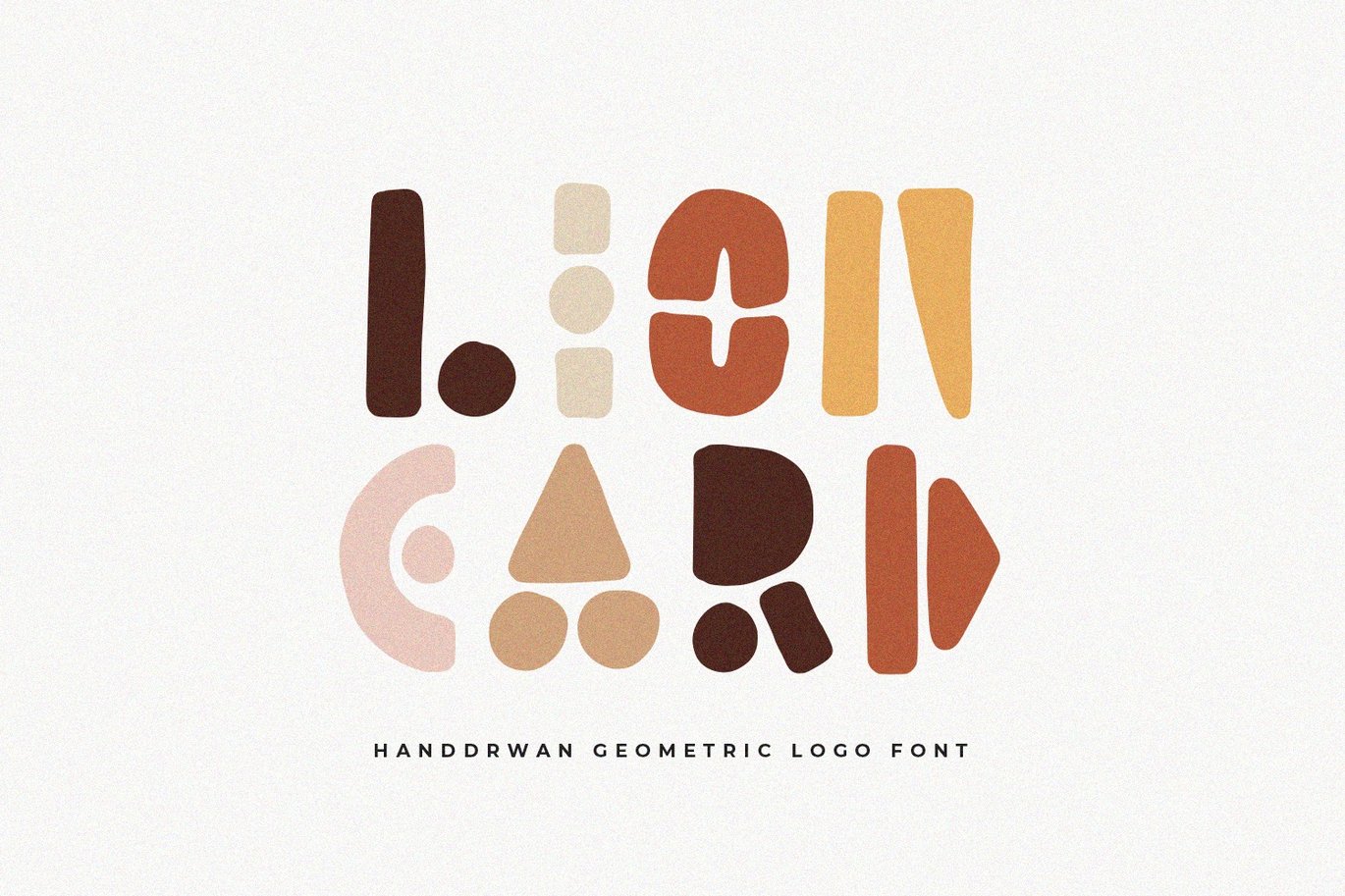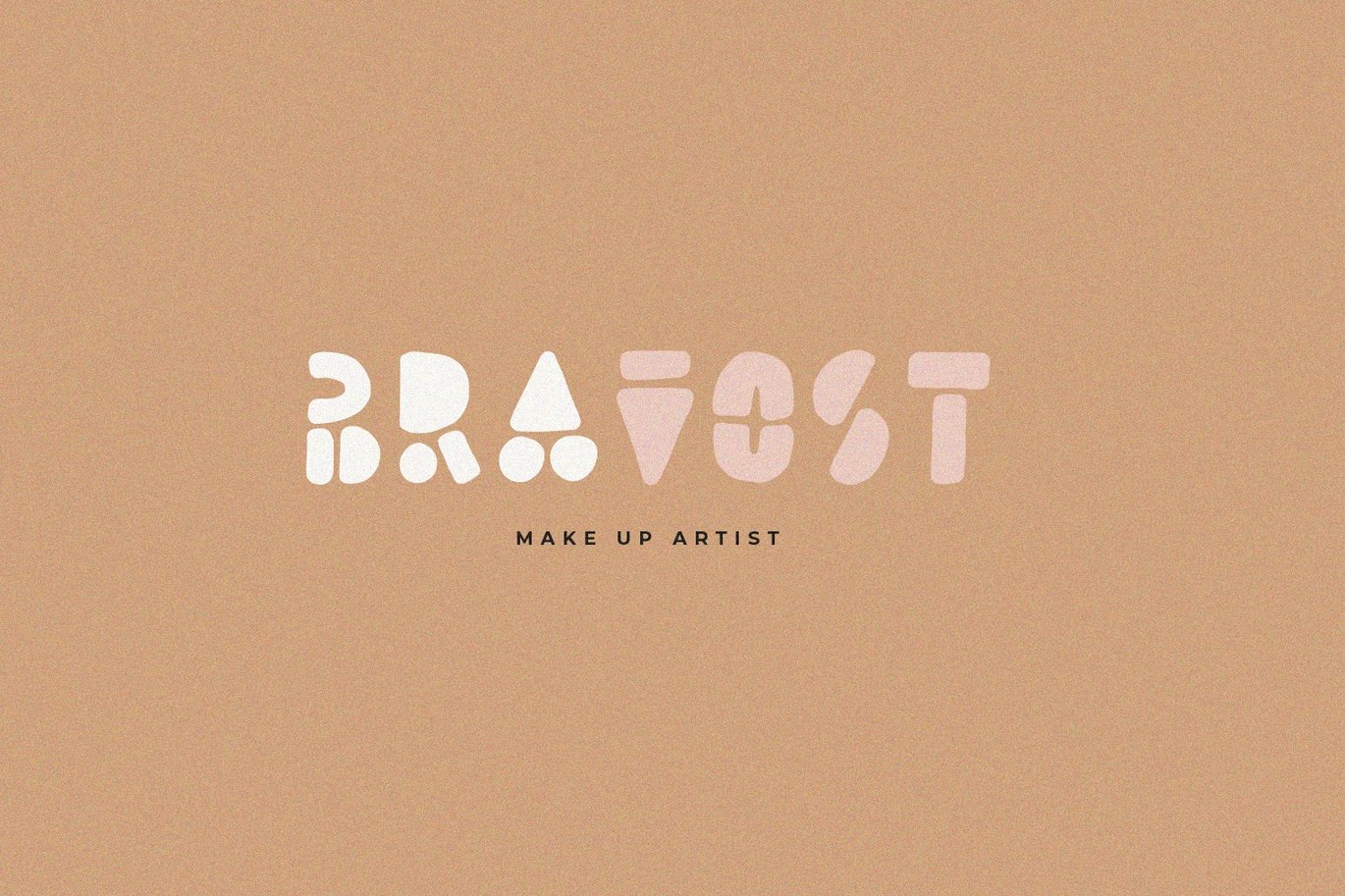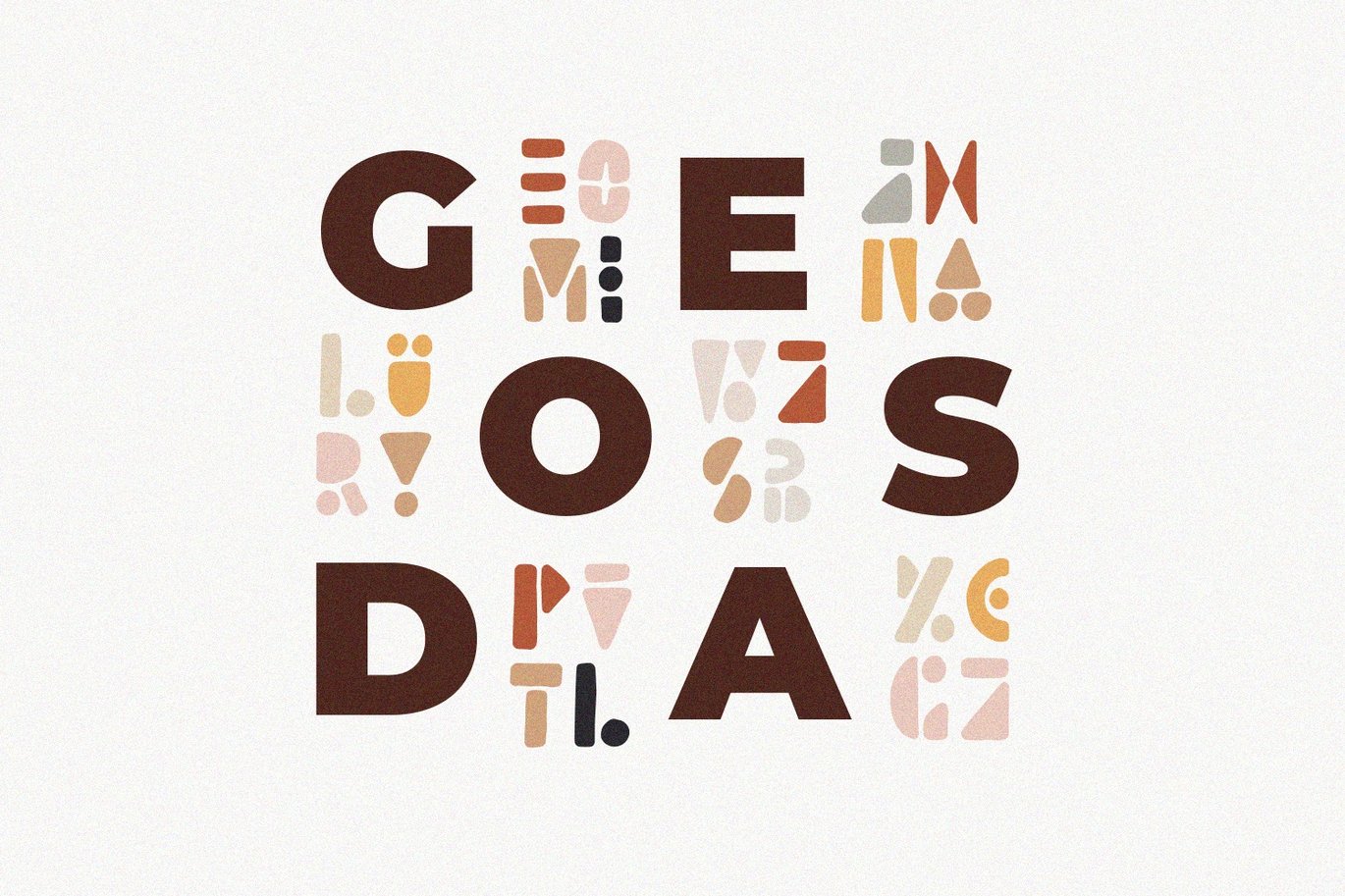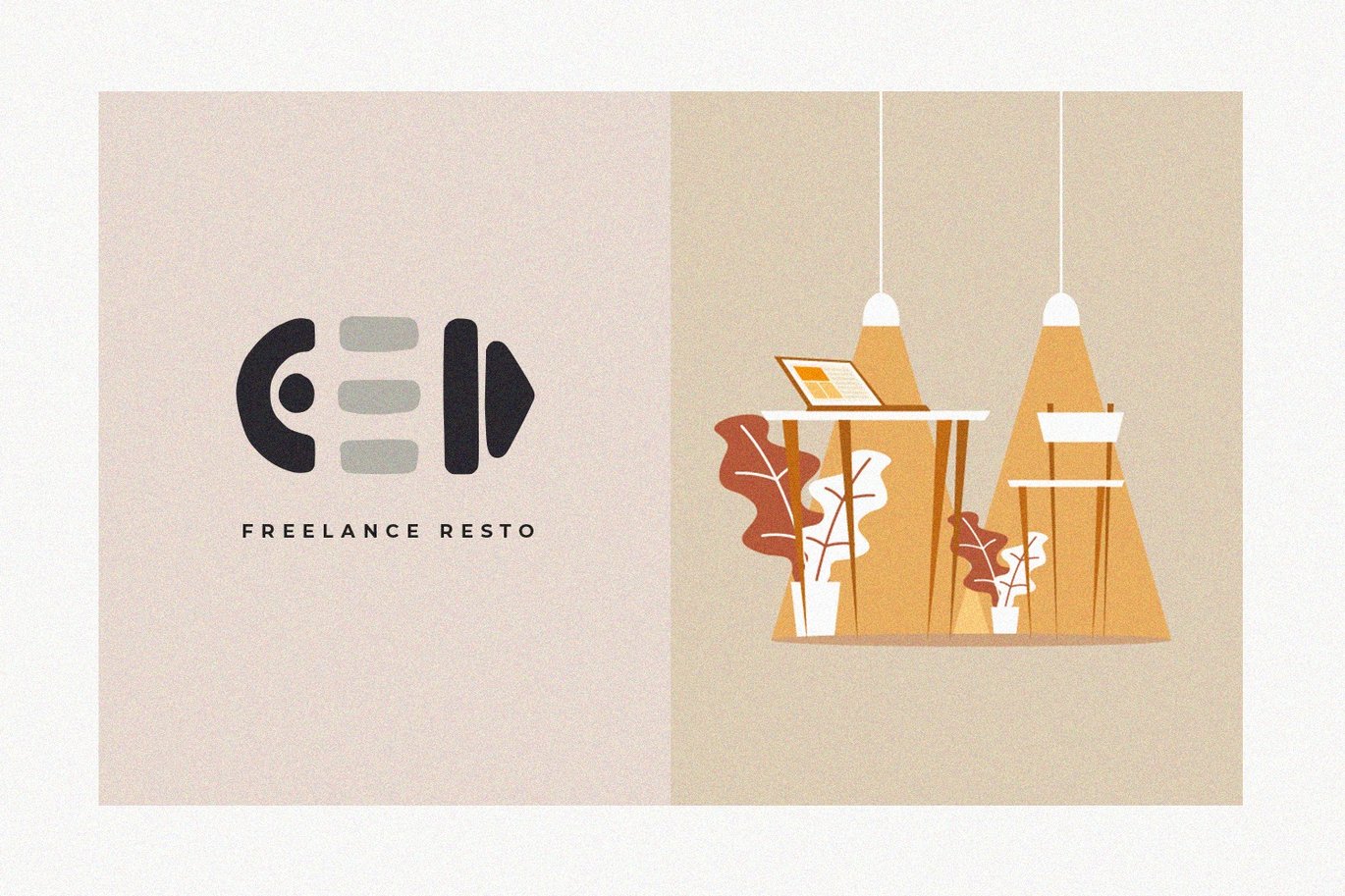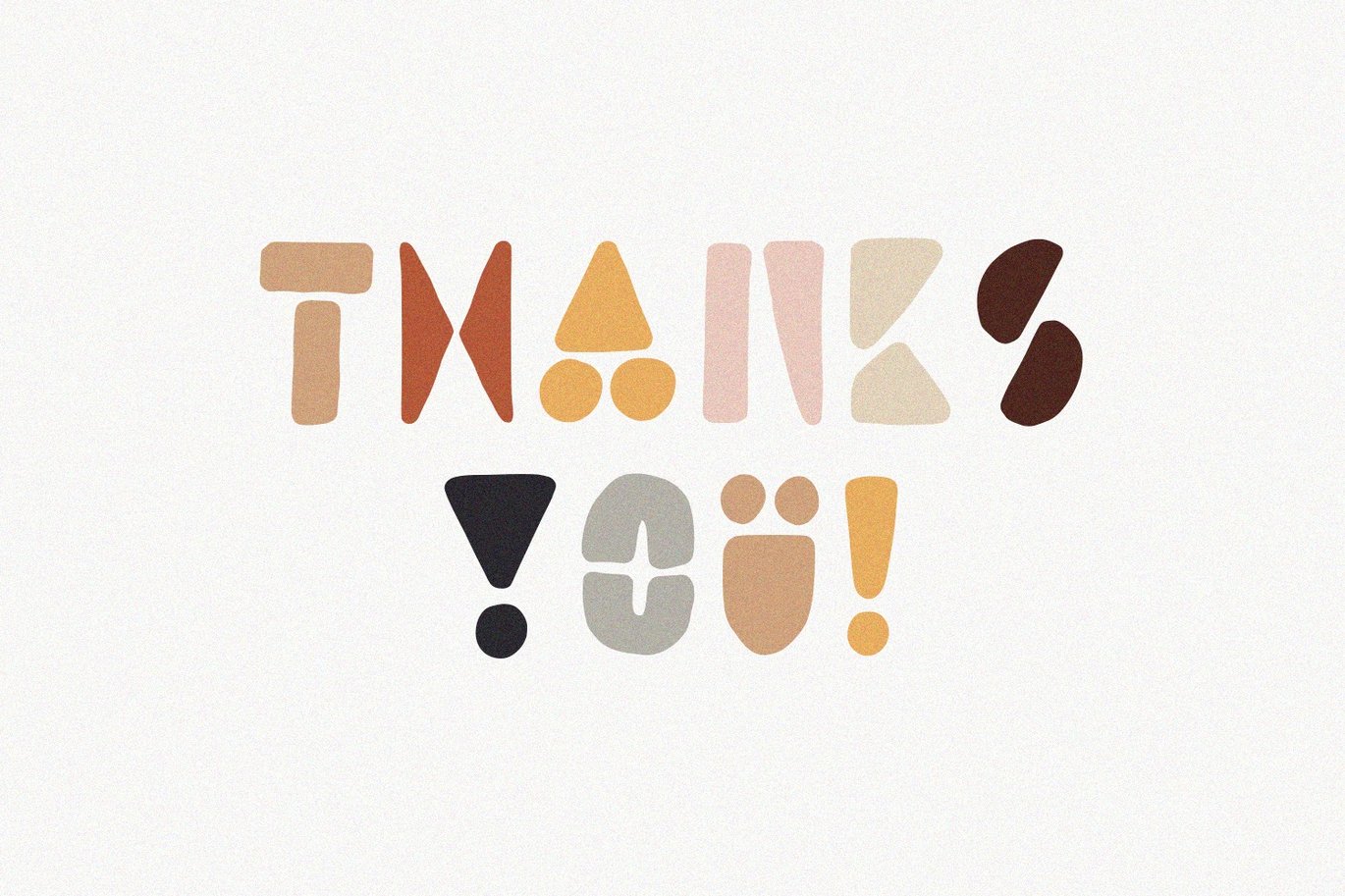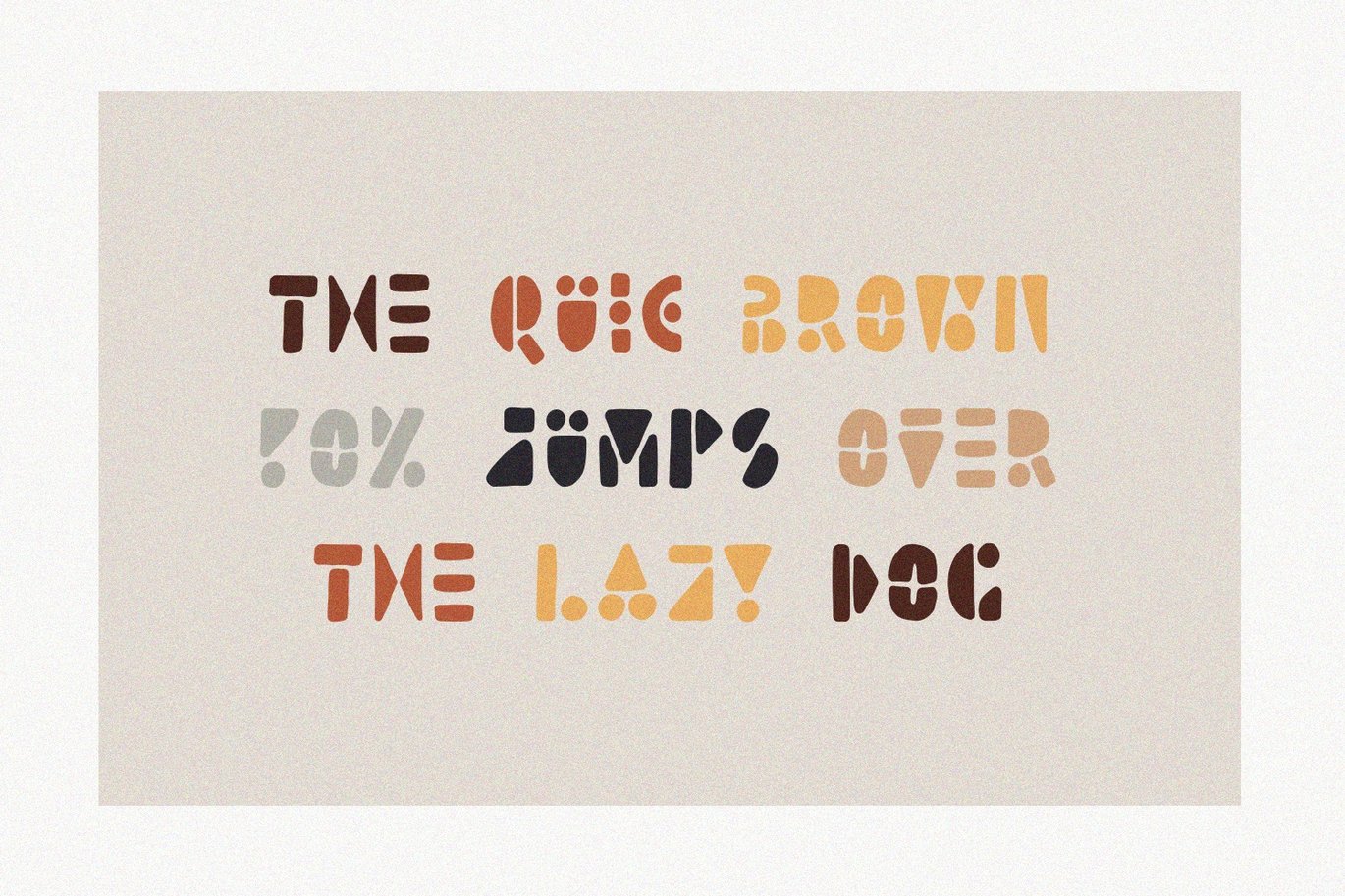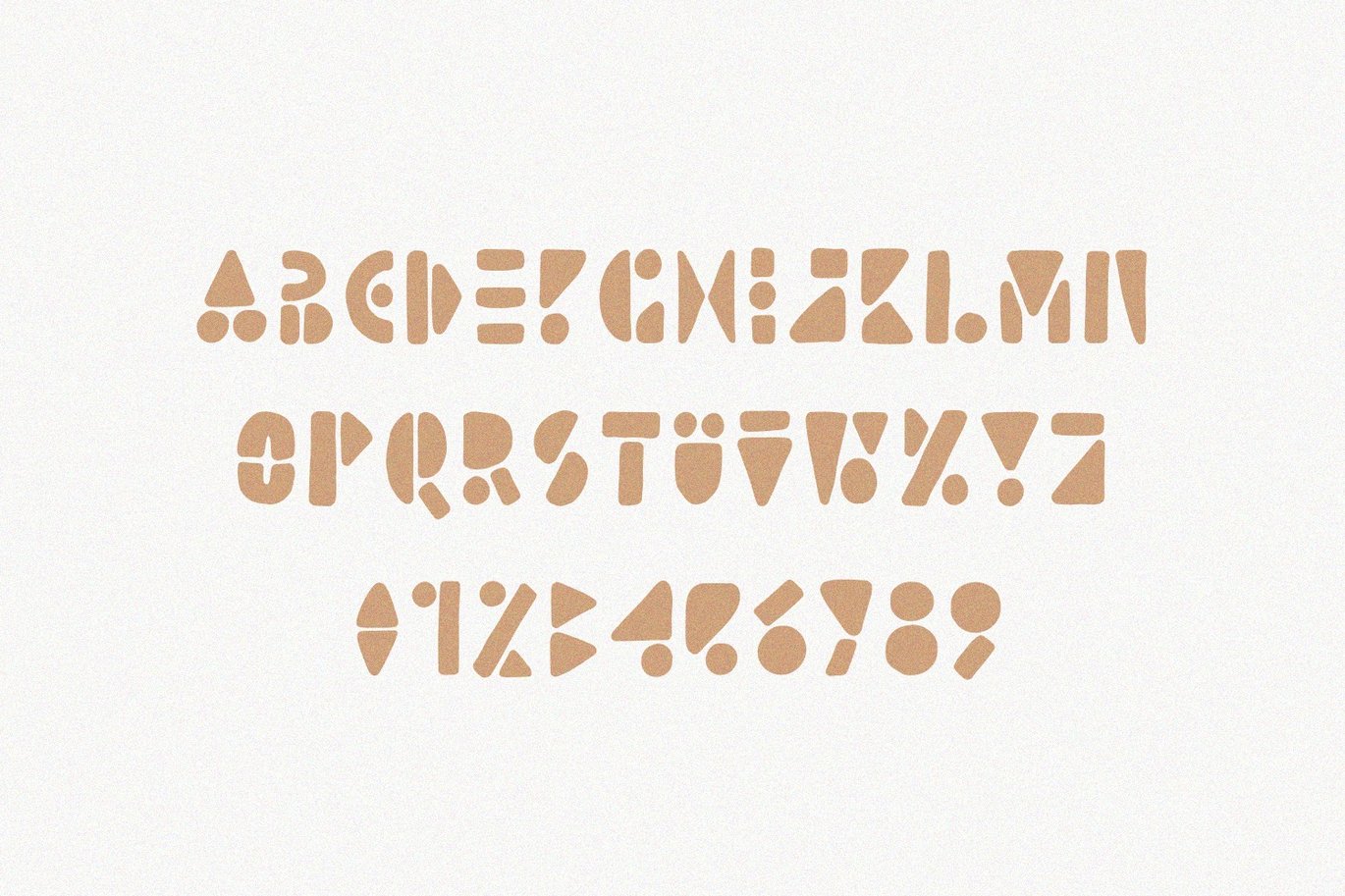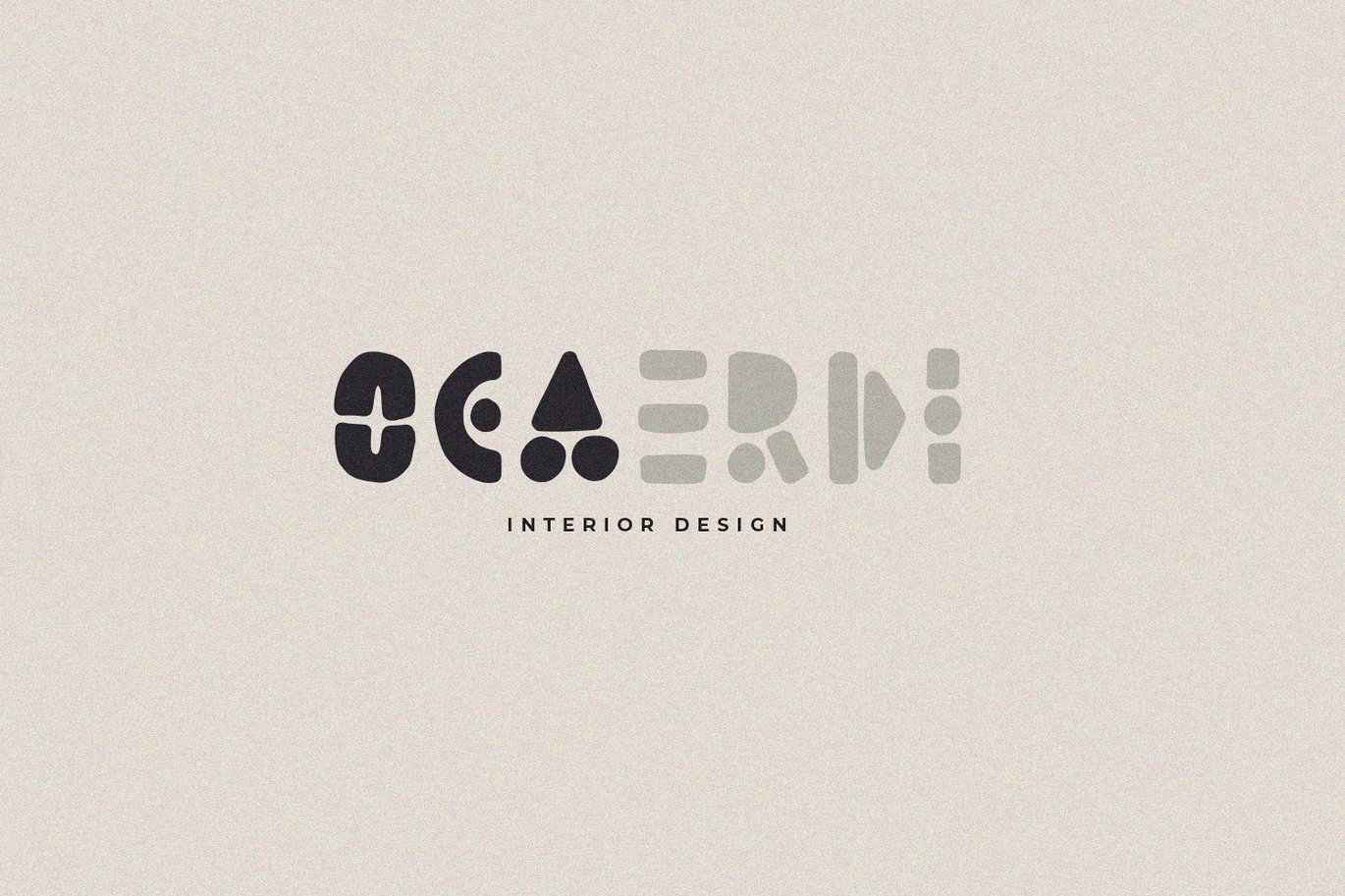
Lion Card | Handmade Geometric Font
Everyone will love geometric. This time we made a font with a geometric style. This font is purely written by hand, so it is perfect for your logo and branding.
This font is perfect when combined with the abstrack style of your design. Try using flat colors to get amazing results. Congratulations to work with our font.